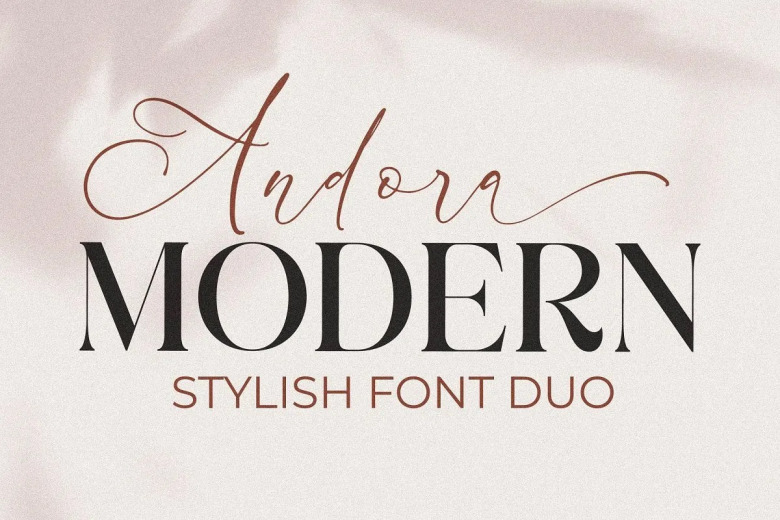
Andora Modern Font
Andora Modern is a very elegant and clean font duo that can use in any of your favorite projects. Give any design a touch of understated elegance with Andora Modern font duo Serif and script. The following characters are ideal for applying this type of font. Because this font is PUA encrypted, you will easily access all of the excellent Glyphs and Ligatures.
Andora Modern Font Duo